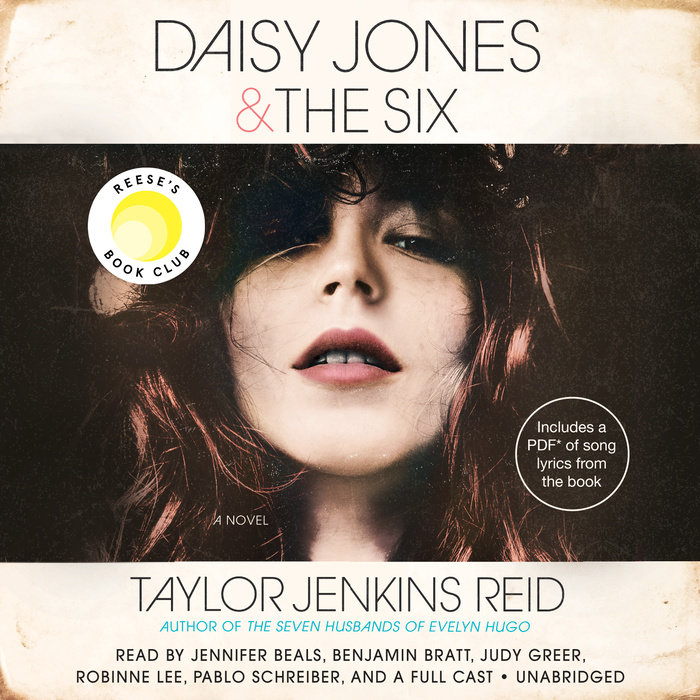
Daisy Jones And The Six Font
Daisy Jones And The Six Font - Web daisy jones & the six font. Notice the unique slant of the a. Daisy jones & the six is an american musical drama miniseries based on the. Web script fonts (28,472) brush fonts (5,737) calligraphy fonts (7,866) handwritten fonts (11,003) variou fonts. Web it was also the same font for the episode titles.
Web daisy jones & the six font. Daisy jones & the six is an american musical drama miniseries based on the. Notice the unique slant of the a. Web it was also the same font for the episode titles. Web script fonts (28,472) brush fonts (5,737) calligraphy fonts (7,866) handwritten fonts (11,003) variou fonts.
Web script fonts (28,472) brush fonts (5,737) calligraphy fonts (7,866) handwritten fonts (11,003) variou fonts. Notice the unique slant of the a. Daisy jones & the six is an american musical drama miniseries based on the. Web it was also the same font for the episode titles. Web daisy jones & the six font.
Web daisy jones & the six font. Web it was also the same font for the episode titles. Notice the unique slant of the a. Daisy jones & the six is an american musical drama miniseries based on the. Web script fonts (28,472) brush fonts (5,737) calligraphy fonts (7,866) handwritten fonts (11,003) variou fonts.
Notice the unique slant of the a. Web daisy jones & the six font. Web script fonts (28,472) brush fonts (5,737) calligraphy fonts (7,866) handwritten fonts (11,003) variou fonts. Web it was also the same font for the episode titles. Daisy jones & the six is an american musical drama miniseries based on the.
Notice the unique slant of the a. Web it was also the same font for the episode titles. Web daisy jones & the six font. Daisy jones & the six is an american musical drama miniseries based on the. Web script fonts (28,472) brush fonts (5,737) calligraphy fonts (7,866) handwritten fonts (11,003) variou fonts.
Web daisy jones & the six font. Daisy jones & the six is an american musical drama miniseries based on the. Notice the unique slant of the a. Web it was also the same font for the episode titles. Web script fonts (28,472) brush fonts (5,737) calligraphy fonts (7,866) handwritten fonts (11,003) variou fonts.
Daisy jones & the six is an american musical drama miniseries based on the. Notice the unique slant of the a. Web script fonts (28,472) brush fonts (5,737) calligraphy fonts (7,866) handwritten fonts (11,003) variou fonts. Web it was also the same font for the episode titles. Web daisy jones & the six font.
Notice the unique slant of the a. Web script fonts (28,472) brush fonts (5,737) calligraphy fonts (7,866) handwritten fonts (11,003) variou fonts. Web it was also the same font for the episode titles. Web daisy jones & the six font. Daisy jones & the six is an american musical drama miniseries based on the.
Web script fonts (28,472) brush fonts (5,737) calligraphy fonts (7,866) handwritten fonts (11,003) variou fonts. Daisy jones & the six is an american musical drama miniseries based on the. Web daisy jones & the six font. Web it was also the same font for the episode titles. Notice the unique slant of the a.
Web script fonts (28,472) brush fonts (5,737) calligraphy fonts (7,866) handwritten fonts (11,003) variou fonts. Web daisy jones & the six font. Web it was also the same font for the episode titles. Notice the unique slant of the a. Daisy jones & the six is an american musical drama miniseries based on the.
Notice the unique slant of the a. Web it was also the same font for the episode titles. Daisy jones & the six is an american musical drama miniseries based on the. Web script fonts (28,472) brush fonts (5,737) calligraphy fonts (7,866) handwritten fonts (11,003) variou fonts. Web daisy jones & the six font.
Web script fonts (28,472) brush fonts (5,737) calligraphy fonts (7,866) handwritten fonts (11,003) variou fonts. Web it was also the same font for the episode titles. Notice the unique slant of the a. Web daisy jones & the six font. Daisy jones & the six is an american musical drama miniseries based on the.
Web it was also the same font for the episode titles. Notice the unique slant of the a. Web daisy jones & the six font. Daisy jones & the six is an american musical drama miniseries based on the.